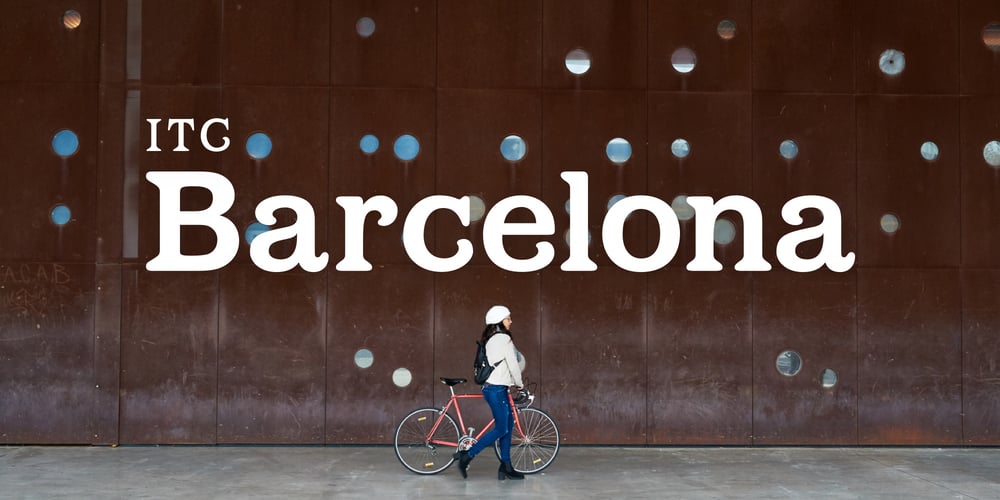
ITC Barcelona Font Family was designed by Edward Benguiat and published by ITC. ITC Barcelona contains 8 styles and family package options. ITC Barcelona was designed by Ed Benguiat, a serif typeface with almost decorative details. The bold and heavy weights include some unique twists to a number of characters and numerals which are slightly rounder than those of the other weights. The flexible ITC Barcelona can be used in text or displays.